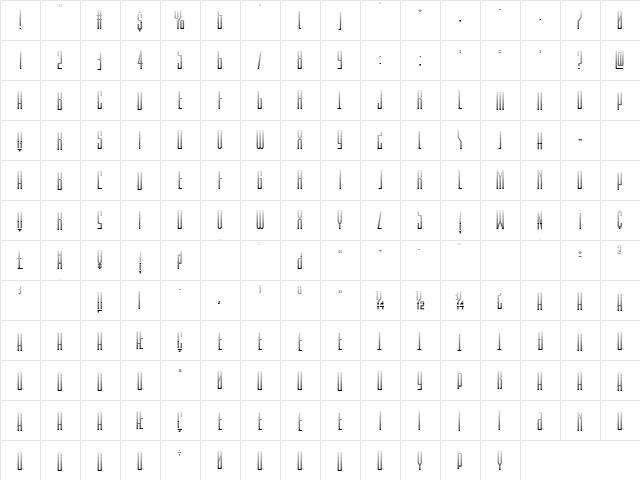
Blue Cobra Gradient Regular
Design Context for Blue Cobra Gradient Typeface
Blue Cobra Gradient is a composed and adaptable typeface that performs quietly and consistently across a wide range of design contexts.